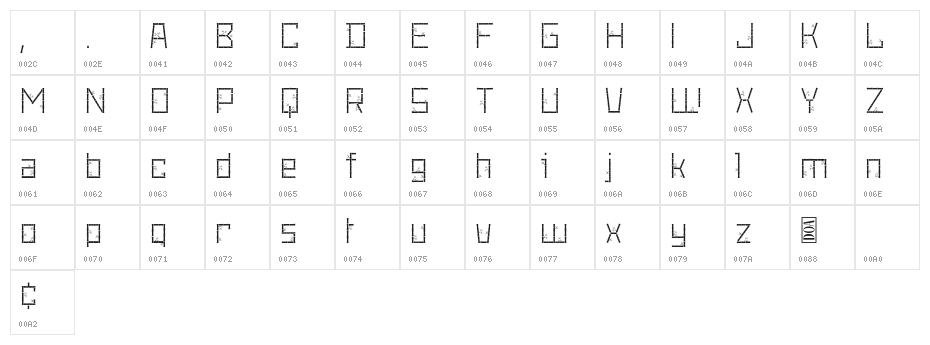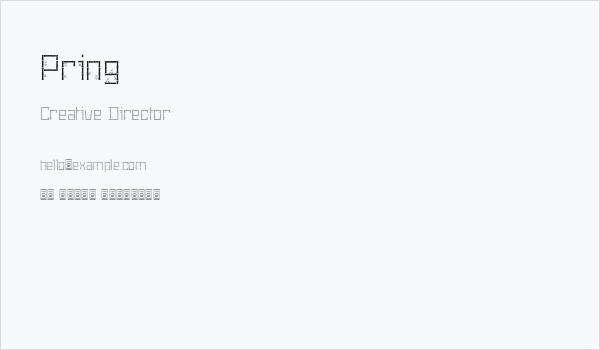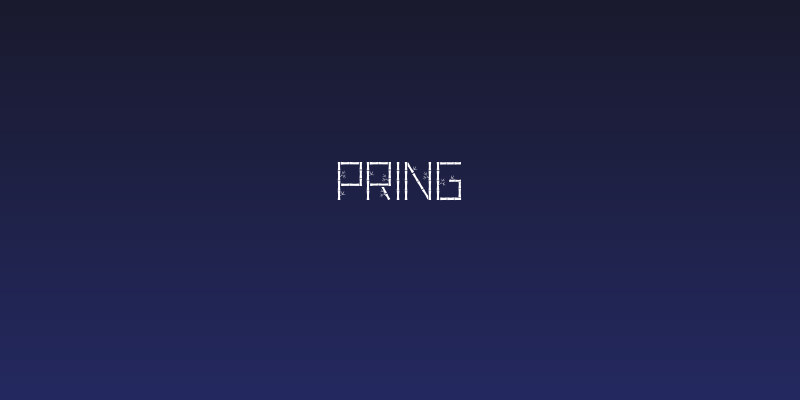
Pring Font
Pring Description
This font features a unique and decorative style, resembling bamboo sticks with small leaves sprouting from them. Each character is constructed with a series of straight lines and angular connections, giving it a natural and organic appearance. The design is consistent across uppercase, lowercase, and numeric characters, maintaining a cohesive look. The special characters also follow this theme, integrating seamlessly with the rest of the set. This font is visually striking and would stand out in any design project.
| Proposed Projects | Ideal for projects related to nature, eco-friendly brands, Asian-themed designs, or any creative work that requires a unique and eye-catching typeface. |